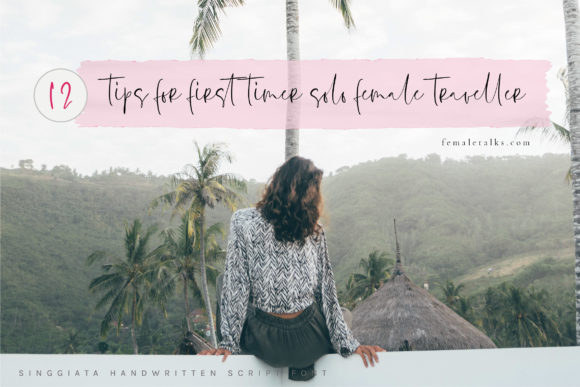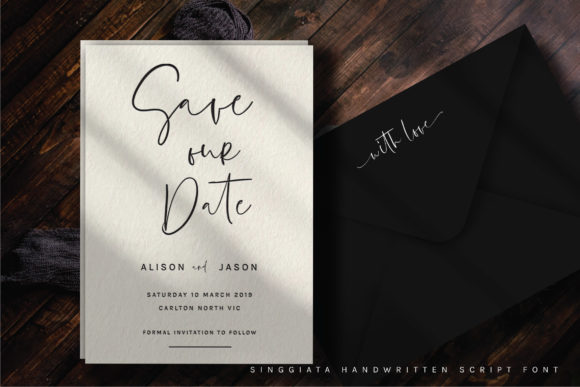
Singgiata Font
db-ku.com - Script & Handwritten -- Singgiata is a cursive and delicate script font. This font is PUA encoded which means you can access all of the glyphs and swashes with ease!